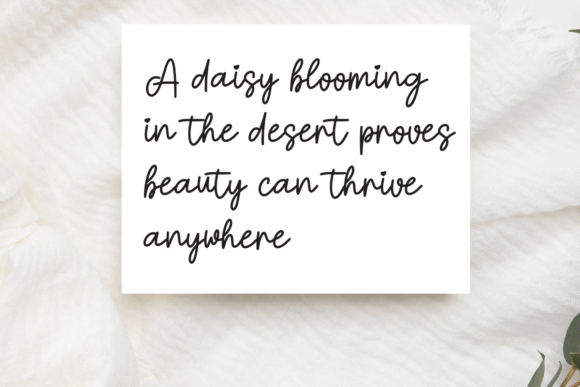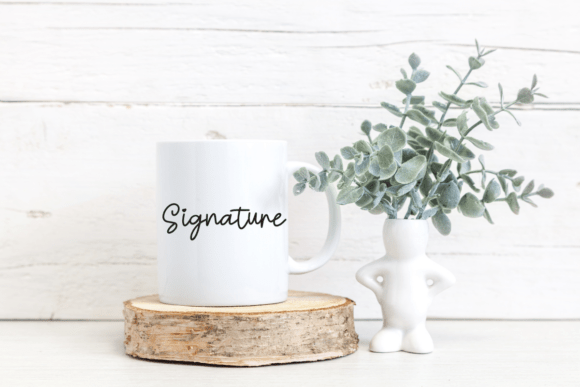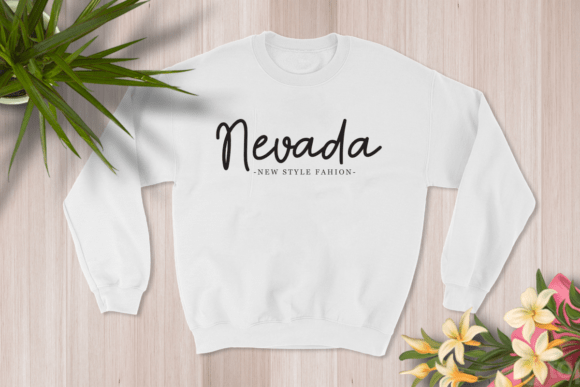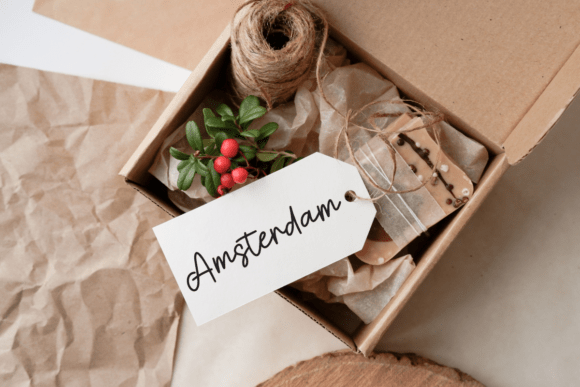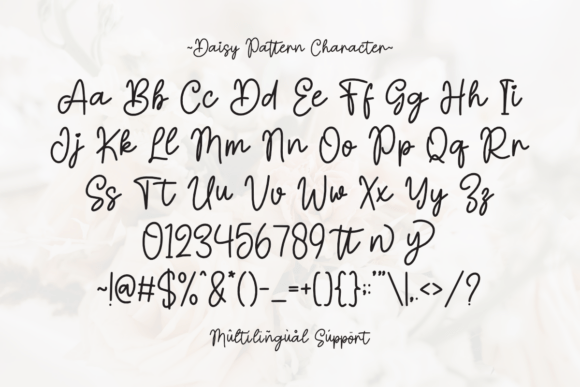
Discover the Delight of Daisy Pattern Font
Have you ever stumbled upon a font that makes you feel like you’ve found a hidden treasure? For designers and creatives, this moment is a thrill that sparks inspiration and sets the tone for a project’s success. It’s the moment when the perfect font emerges, elevating your design from good to great.
This is precisely what happens when you fall in love with the Daisy Pattern Font. This charming handwritten script font is designed to evoke a sense of elegance and playfulness, making it an ideal choice for a wide range of creative projects. Whether you’re crafting wedding invitations, logos, or social media posts, the Daisy Pattern Font brings a touch of modern sophistication and warmth that resonates with your audience.
Daisy Pattern Font Key Features
- Unique Characteristics: The Daisy Pattern Font features a distinctive, intricate design inspired by traditional floral patterns, adding a touch of elegance and sophistication to any design project.
Daisy Pattern Font Review
Overall, I’m quite impressed with the Daisy Pattern Font. ✨ It’s a beautifully designed font that brings a touch of whimsy and charm to any project. The font is highly customizable, allowing you to adjust the size, color, and spacing to fit your specific needs.
Here are some of the things that I like about this font:
- Unique and playful design: The Daisy Pattern Font is unlike any other font I’ve seen, making it perfect for projects that need a little extra personality.
- Highly customizable: As I mentioned earlier, this font can be adjusted to fit any project’s needs, making it a great choice for designers who like to have control over their design.
- Easy to read: Despite its playful design, the font is still easy to read and understand, making it perfect for projects where clarity is important.
That being said, there are a few limitations to this font:
- Limited character set: The font only includes a limited number of characters, which may not be suitable for projects that require a wide range of characters.
- May not be suitable for small text: The font’s playful design may make it difficult to read when used in small text sizes.
- May require additional formatting: Depending on the project, you may need to adjust the font’s formatting to get the desired look.
Overall, I would highly recommend the Daisy Pattern Font for projects that need a unique and playful touch. With a little creativity and customization, this font can add a lot of character to any design. ⚠️ Just be aware of its limitations and adjust your design accordingly.
The Daisy Pattern Font is ideal for:
- Baby shower invitations and decorations
- Floral-themed designs and graphics
Alternatives to Daisy Pattern Font
The Daisy Pattern Font is a popular choice for designers due to its playful and whimsical feel. However, it may not be suitable for every project. Here are some alternatives to consider: